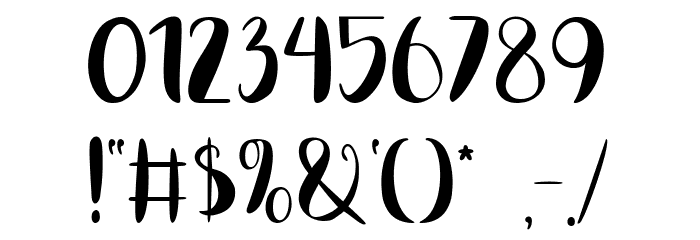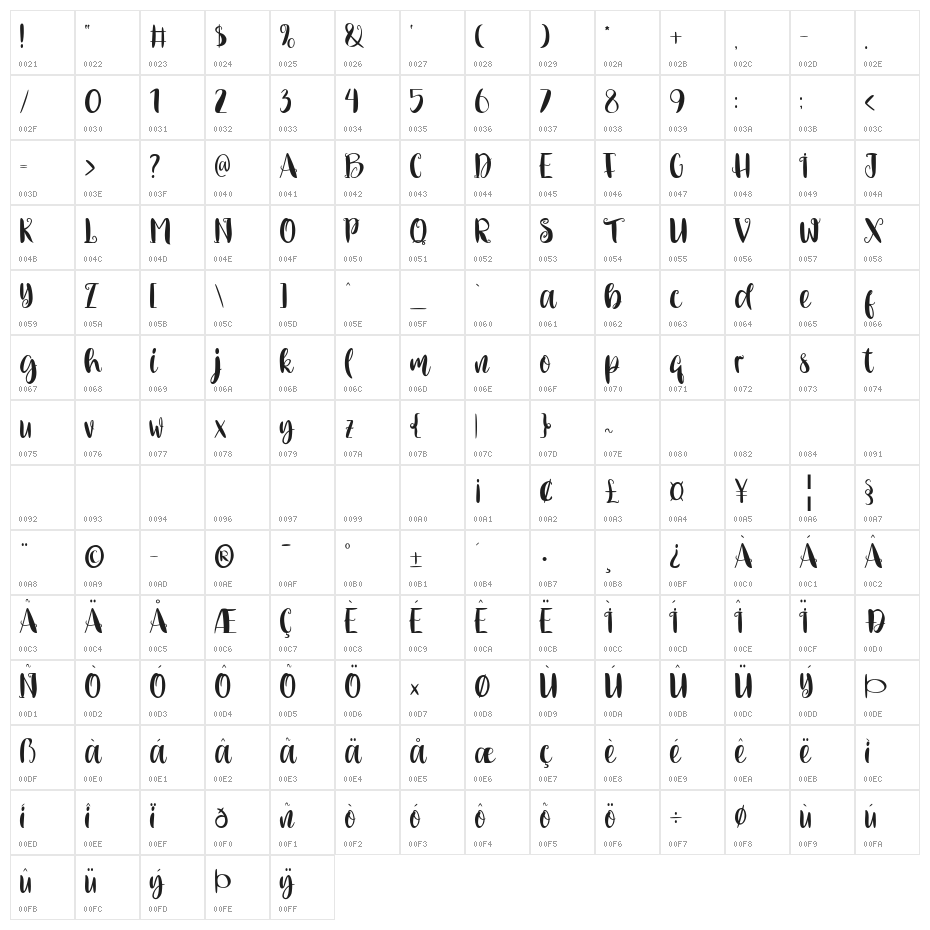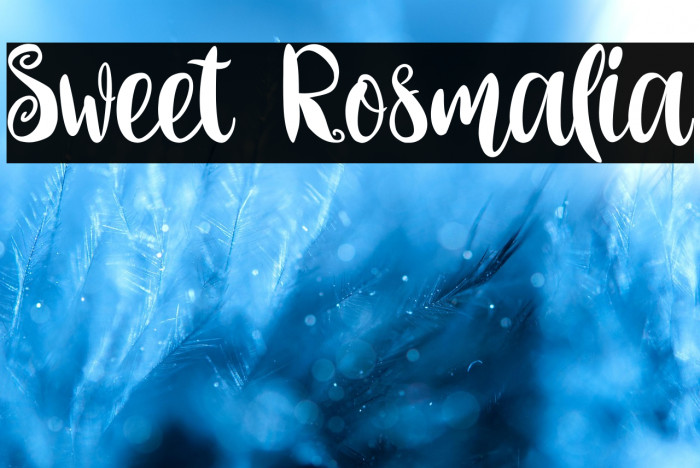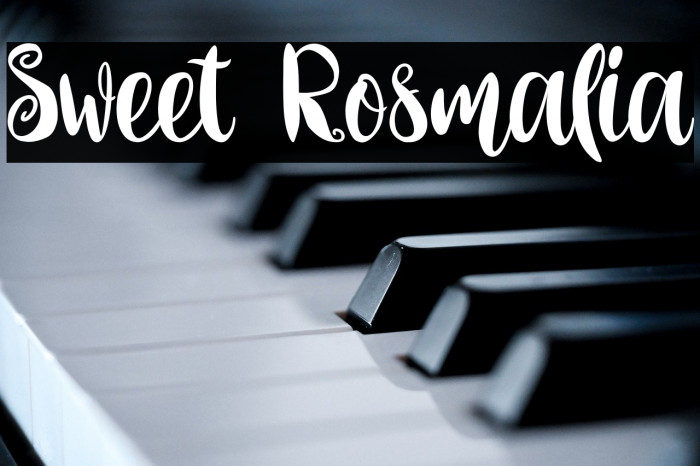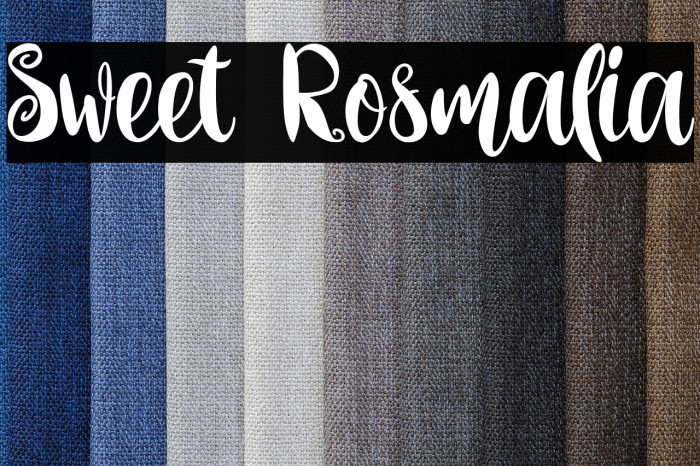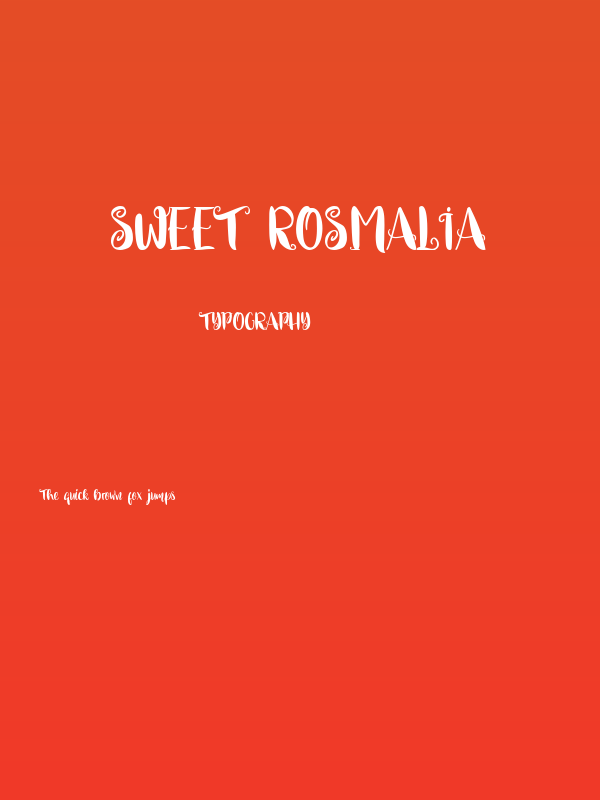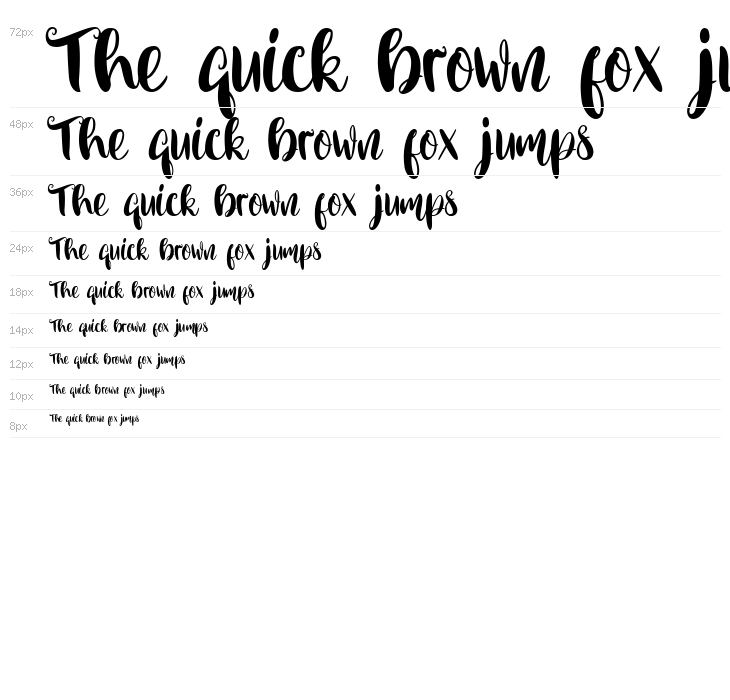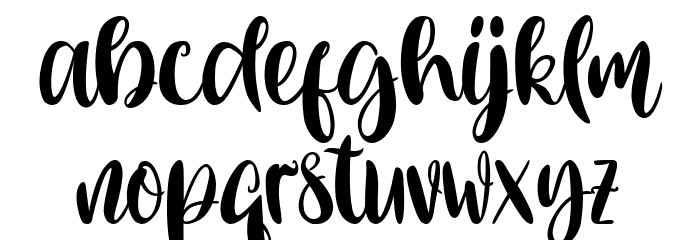
Sweet Rosmalia Font
Sweet Rosmalia Description
This font features a whimsical and playful script style with a strong decorative flair. The uppercase letters are characterized by elegant swirls and loops, adding a sense of movement and charm. The lowercase letters maintain a consistent flow with a slightly more relaxed structure, enhancing readability while preserving the font's artistic appeal. The numerals are bold and clear, matching the overall style with a touch of whimsy. Special characters are creatively designed, fitting seamlessly into the font's aesthetic. This font is perfect for projects that require a touch of elegance and playfulness, such as invitations, greeting cards, and branding materials.
| Proposed Projects | Ideal for invitations, greeting cards, branding, and decorative projects. |